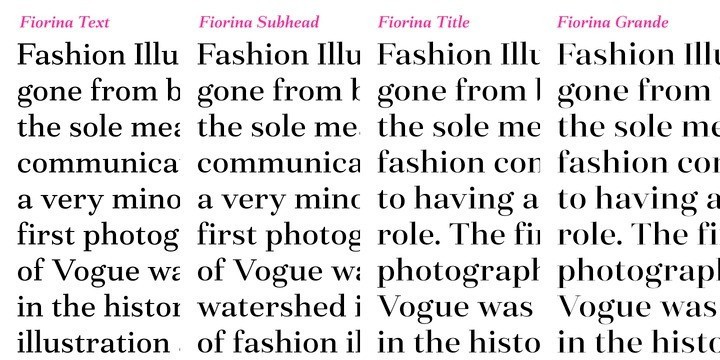
Fiorina Font Family
Hello guys. Fiorina Font Family is an elegant & modern serif typeface that uses ligatures to smoothly link letters. It’s a wedge serif font that is sure to stand out! A little bit retro and a bit modern, The unique sharp serifs mixed with thin strokes give off a bold mid century architectural vibe! It’s designed and shared by Mint Type. Fiorina is a modern Didone-style serif typeface of 72 fonts. It comes in 4 optical sizes, ranging from Text with moderate contrast to super-contrasted Grande.
The glyph set supports all European Latin-based languages, as well as all major languages that use Cyrillic script. The type family also suppors numerous OpenType features, including 6 sets of digits, small caps, fractions, superscript and subscripts, ordinals, and more.